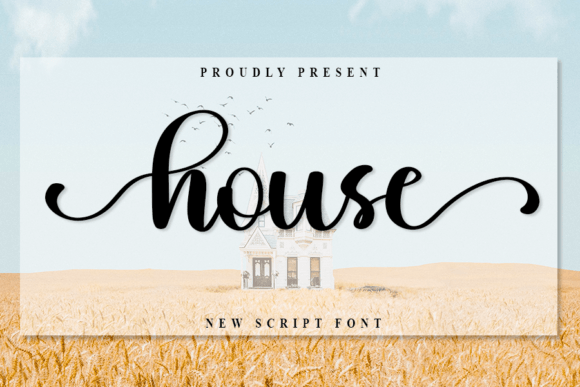
About House Font
“House” is a beautiful and refined handwritten font that combines class and modernity, making it an ideal choice for a wide range of design purposes. This font is versatile and well-suited for applications such as logos, branding, invitations, stationery, wedding designs, social media posts, and much more.
The appeal of “House” lies in its ability to convey elegance and a contemporary touch through its meticulously crafted characters. Its handwritten style adds sophistication and a sense of modernity to your design projects, enhancing their visual appeal.
Whether you’re working on branding and logo design, creating stylish invitations, designing stationery items, crafting wedding materials, or developing engaging social media content, “House” is the font that can bring a touch of modern elegance to your creative projects.
In the world of design, creating a lasting and classy impression is crucial for certain projects, and “House” excels in this regard. It ensures that your projects not only look visually appealing but also exude a feeling of refined beauty, leaving a memorable and contemporary impact on your audience.
Furthermore, the fact that “House” is PUA encoded means that you can easily access its amazing glyphs and ligatures, enhancing the versatility and creative potential of this font.
In summary, “House” is more than just a font; it’s a design asset that effortlessly combines beauty and modernity. Its refined characters make it suitable for a wide range of projects, allowing you to create designs that are not only visually captivating but also exude an air of elegance and modern class. Embrace “House” and let its beauty and modern refinement enhance your creative endeavors, making them shine with sophistication and contemporary flair !